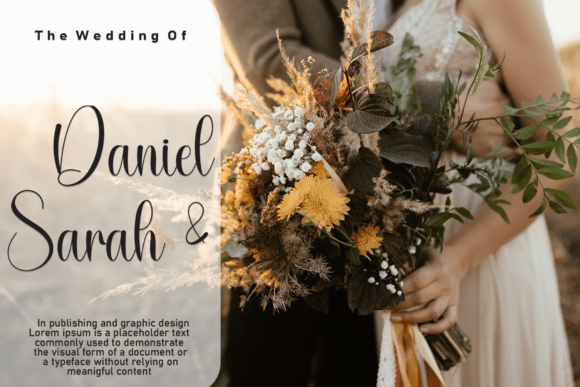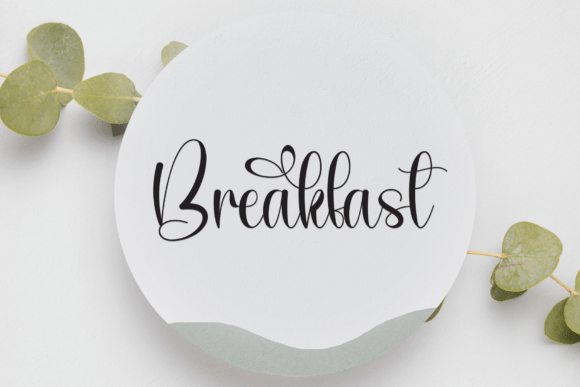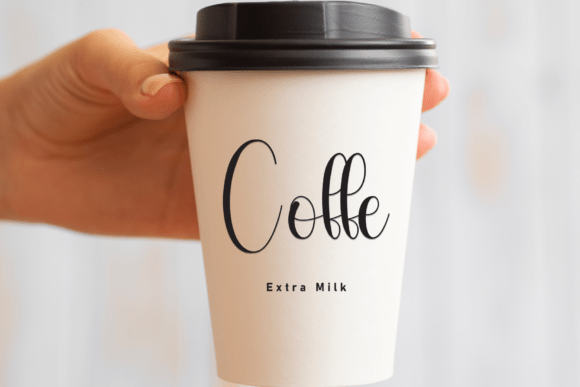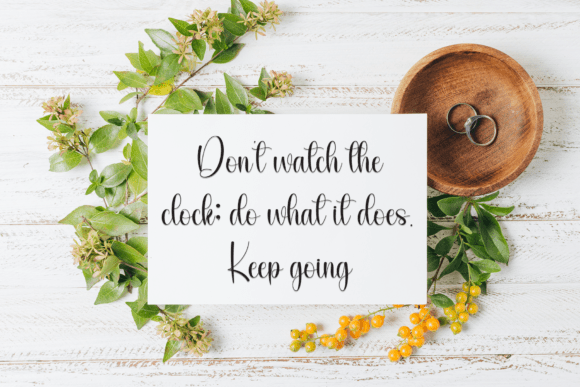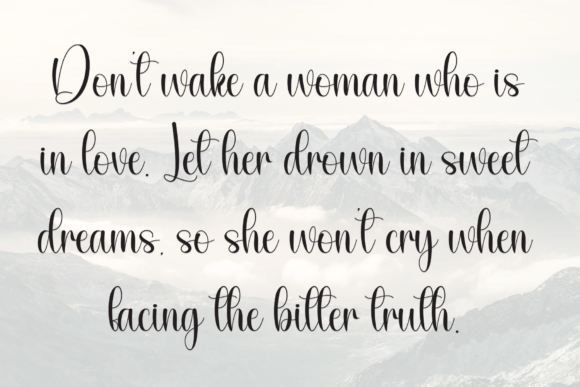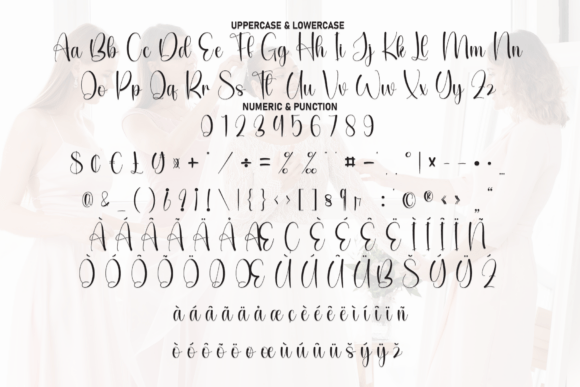
Bride Font: Elevate Your Designs with Elegance and Playfulness
In the world of typography, few fonts capture the essence of elegance and playfulness as beautifully as Bride Font. This stunning handwritten script font is designed to bring a touch of sophistication and charm to any project, making it a perfect choice for designers and crafters looking to add a personal touch to their creations.
The Essence of Bride Font
Bride Font is a stylish handwritten script font that exudes elegance and playfulness in every stroke. Its flowing curves and natural rhythm give it a unique and charming personality that sets it apart from other fonts. With its graceful design, Bride Font brings warmth, sophistication, and creativity to any project, making it an excellent choice for a wide range of applications, including invitations, branding, and social media.
Key Features of Bride Font
• Handwritten Script Font: Bride Font is a beautiful handwritten script font that adds a personal touch to any project.
• Elegant and Playful: With its flowing curves and natural rhythm, Bride Font captures the essence of elegance and playfulness.
• Versatile: Bride Font is perfect for a wide range of applications, including invitations, branding, social media, and more.
• Easy to Read: Despite its elegant and cursive nature, Bride Font is easy to read, making it perfect for body text and headlines.
Uses of Bride Font
Bride Font is an incredibly versatile font that can be used in a variety of applications. Here are some of the most popular uses of Bride Font:
• Wedding Invitations: As its name suggests, Bride Font is perfect for wedding invitations, adding a touch of elegance and romance to your wedding stationery.
• Branding: Bride Font is an excellent choice for branding, particularly for businesses that want to convey a sense of elegance and sophistication.
• Social Media: With its playful and elegant nature, Bride Font is perfect for social media graphics, adding a touch of personality to your posts and stories.
• Stationery: Bride Font is also great for creating custom stationery, including letterheads, business cards, and more.
Tips for Using Bride Font
Here are some tips for using Bride Font in your designs:
• Pair with Other Fonts: Bride Font pairs well with other fonts, particularly sans-serif fonts like Arial or Helvetica.
• Use for Headlines and Body Text: Bride Font is easy to read, making it perfect for both headlines and body text.
• Experiment with Colors: Bride Font looks great in a variety of colors, so don’t be afraid to experiment and find the perfect color for your design.
Bride Font is a stunning handwritten script font that captures the essence of elegance and playfulness. With its flowing curves and natural rhythm, it adds a personal touch to any project, making it perfect for designers and crafters looking to create beautiful and unique designs. Whether you’re creating wedding invitations, branding materials, or social media graphics, Bride Font is an excellent choice. So why not give it a try and see how it can elevate your designs?